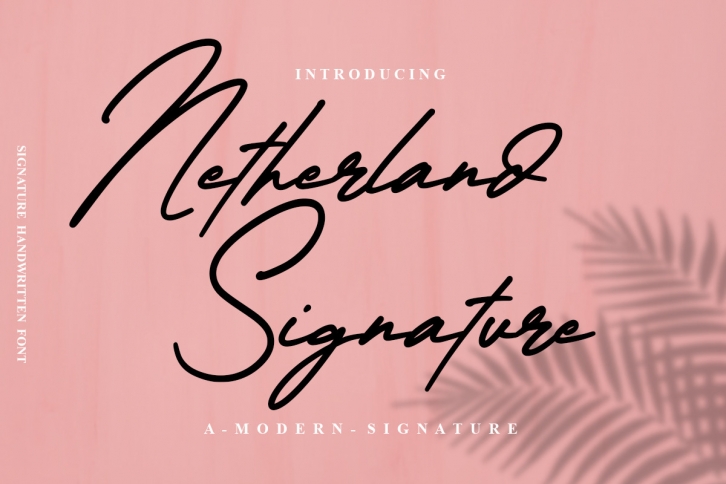
Netherland Signature is a chic and stylish script font. Whether you’re using it for crafts, digital design, presentations, or making greeting cards, this font has the potential to become your favorite go-to font, no matter the occasion!